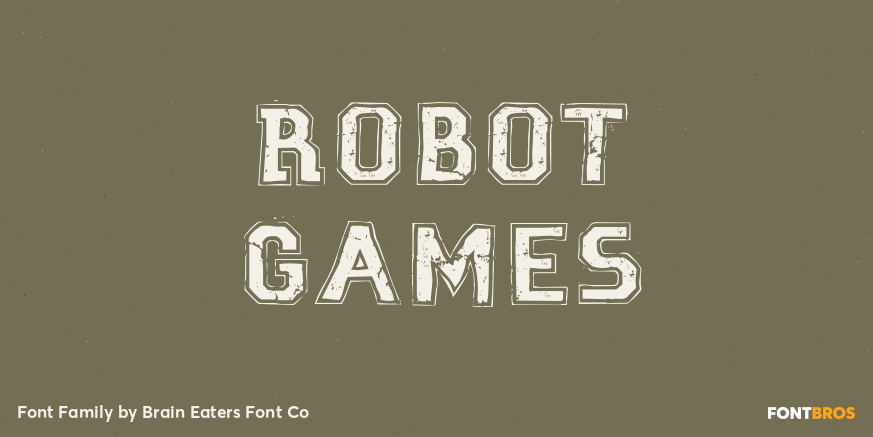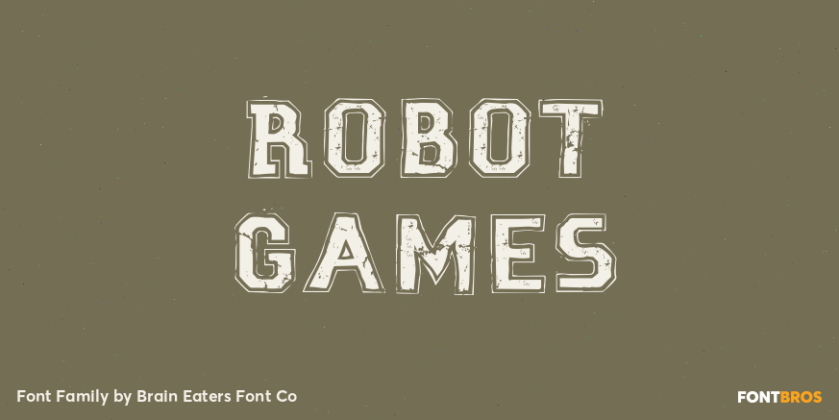
HomeFont BrosDistressedRobot Games Distressed Robot Games FacebookXPinterestWhatsApp 1 of 1 About Robot Games Loosely based on crashed spaceship lettering, and space alien team jerseys.  DOWNLOAD NOW People also explored Ketchup Kr Font Cute Bunny Font Blackout Christmas Font Caston Bean Font Mottel Laguna Font Sunfresh Font Lattih Tiny Font Camping Beer Mockup 240 0 TagsRobot Games Font Previous articleLineavecNext articleYWFT Bitwood LEAVE A REPLY Cancel reply Comment: Please enter your comment! Name:* Please enter your name here Email:* You have entered an incorrect email address! Please enter your email address here Website: Save my name, email, and website in this browser for the next time I comment. Personal Use Free Just Love Personal Use Free Read more about this font Carved Wood Personal Use Free Read more about this font 5cent Free Graffiti Personal Use Free Read more about this font Genres Personal Use Free Read more about this font BLOG 5 Fonts That Will Dominate Design Trends in 2026 5 Fonts for 2026 That Will Dominate Design Trends Typography plays a critical role in visual communication, and as we look ahead to 2026, it’s... Modern Sans-Serif Fonts That Brands Love in 2025 Transform Your Website: Elevate Your Typography with 7 Best Web Font Generators Best Fonts for T-Shirt Design – Top 2025 Picks